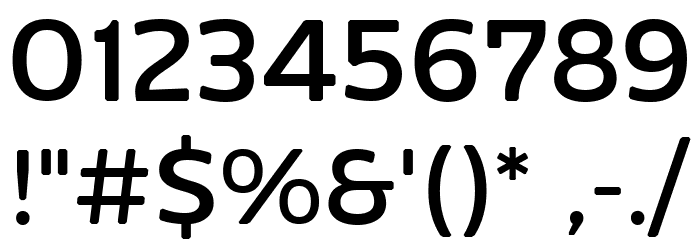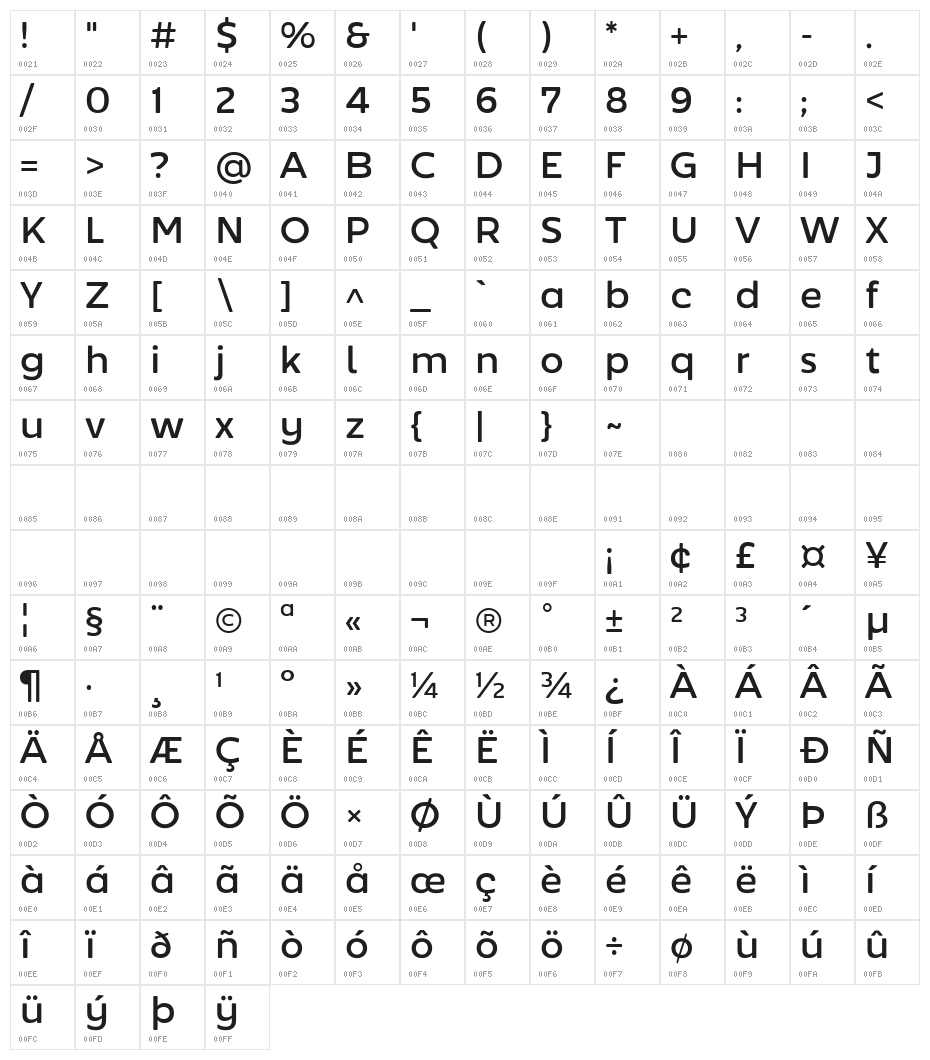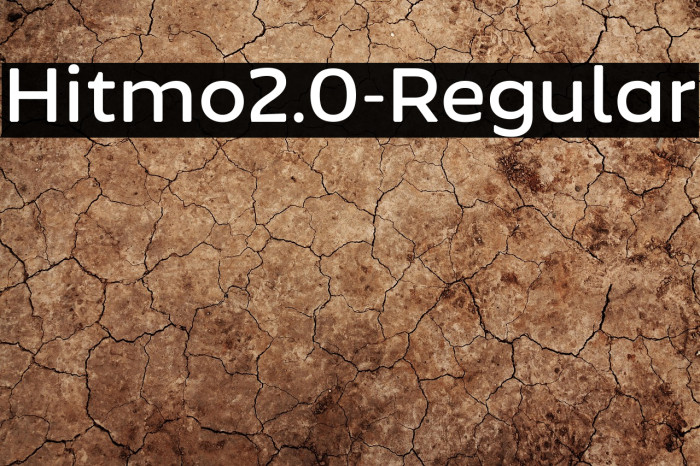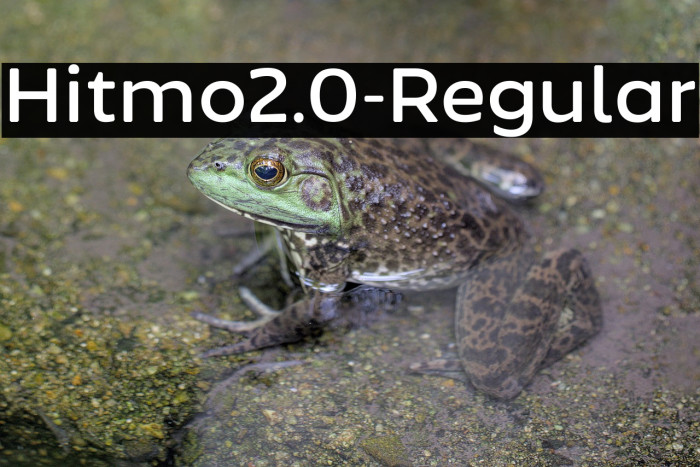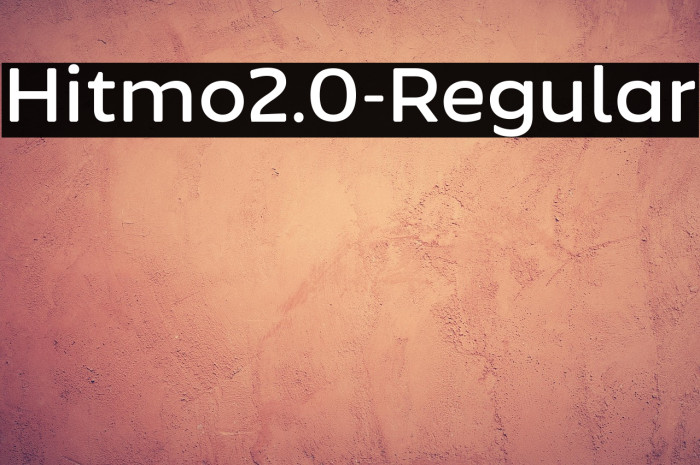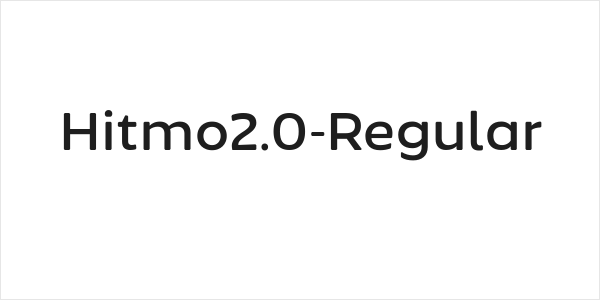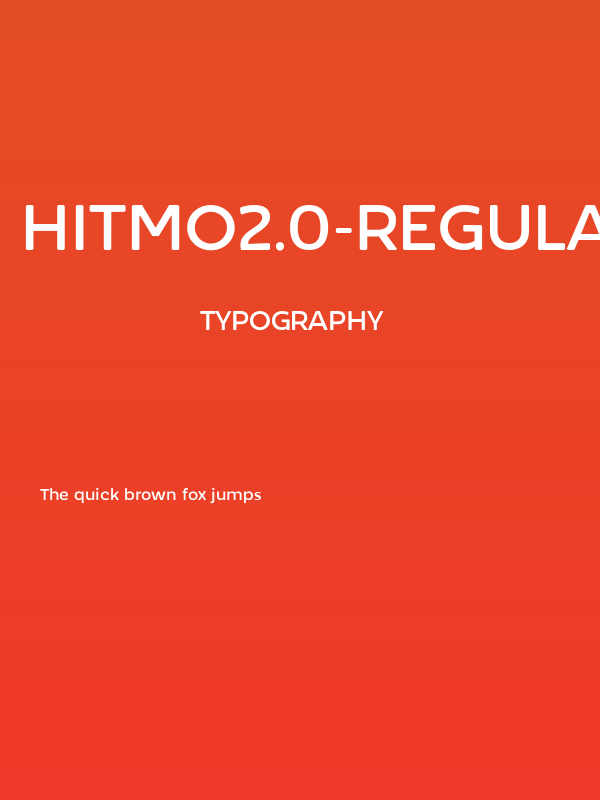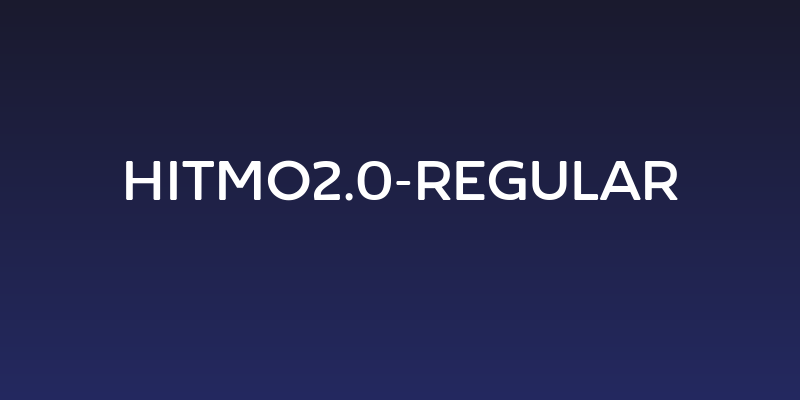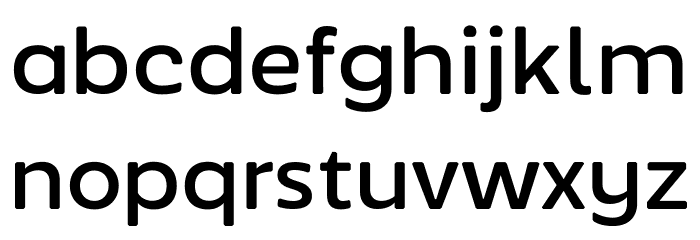
Hitmo2.0-Regular Font
Hitmo2.0-Regular Description
This font exhibits a clean and modern sans-serif style, characterized by its smooth curves and uniform stroke width. The uppercase and lowercase letters are well-proportioned, offering a harmonious balance that enhances readability. The numerals are distinct and clear, making them suitable for both digital and print applications. Special characters are designed with the same attention to detail, ensuring consistency across all glyphs. The overall appearance is sleek and professional, making it versatile for various design needs.
| Proposed Projects | Ideal for branding, web design, corporate materials, and user interfaces. |